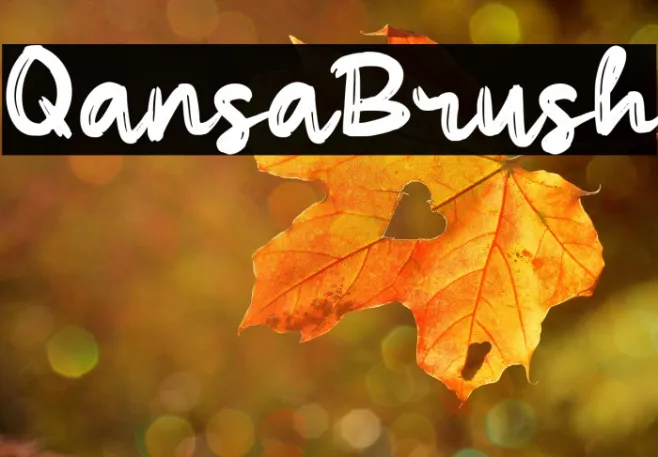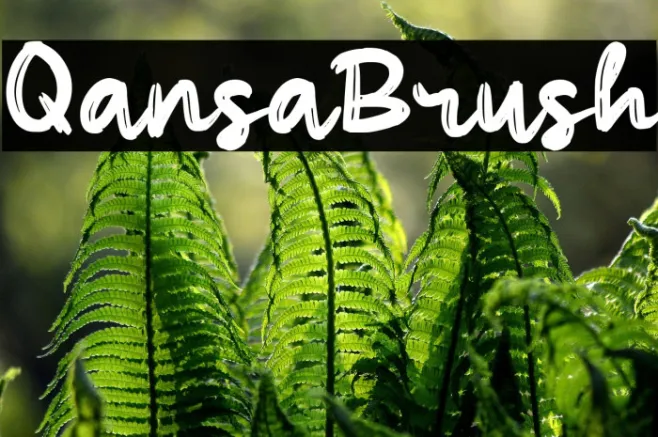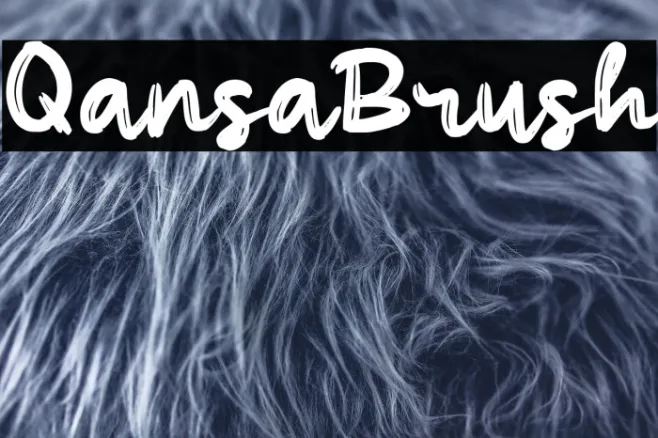
Qansa Brush Font
Qansa Brush Description
A casual, handwritten script font with a playful and informal style, featuring slightly irregular strokes and a friendly appearance.
| Overall Style | Casual, Friendly, Handwritten |
| Use Case | Headlines, Body text, Logos, Invitations |